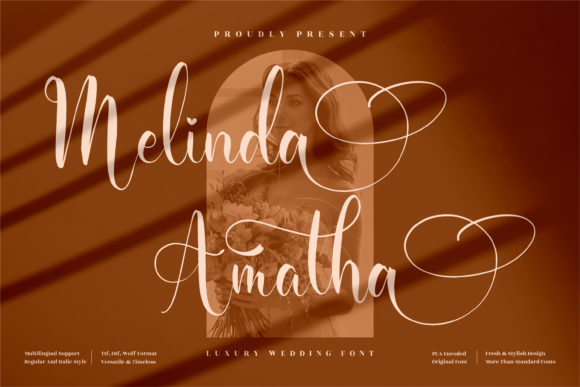
Journey into the realm of sophistication and grace with Melinda Amatha, a script font family that embodies elegance and charm. Inspired by the timeless beauty of handwritten letters, Melinda Amatha dances across your designs with a fluidity and finesse that captures the essence of artistic expression. Let your creativity flourish as you discover the boundless possibilities that await you with this enchanting font.
Melinda Amatha is more than just a font; it's an invitation to embark on a creative odyssey. Whether you're designing invitations for a special occasion, crafting logos that exude professionalism, or creating marketing materials that leave a lasting impression, Melinda Amatha will elevate your designs to new heights. Its versatility knows no bounds, making it the perfect choice for a wide range of projects, from elegant wedding invitations to eye-catching social media graphics.
Step into a world where beauty and functionality intertwine seamlessly. Melinda Amatha's meticulous craftsmanship ensures effortless readability and clarity, even in the smallest of sizes. Its graceful curves and delicate flourishes add a touch of magic to your designs, transforming ordinary words into captivating works of art. Experience the joy of creating designs that resonate with your audience, leaving them spellbound by the sheer elegance of your creations.
With Melinda Amatha, you'll discover a treasure trove of OpenType features that unlock endless creative opportunities. Explore a vast array of ligatures, swashes, and alternates, each meticulously crafted to add depth and dimension to your designs. Unleash your imagination and let your creativity soar as you experiment with different combinations, creating unique and captivating layouts that reflect your personal style.
Melinda Amatha is a font that speaks to the heart, evoking a sense of nostalgia and timeless beauty. Its classic yet contemporary aesthetic transcends trends, ensuring that your designs remain relevant and impactful for years to come. Embrace the power of Melinda Amatha and watch as your creative visions come to life, leaving an indelible mark on the world of design.